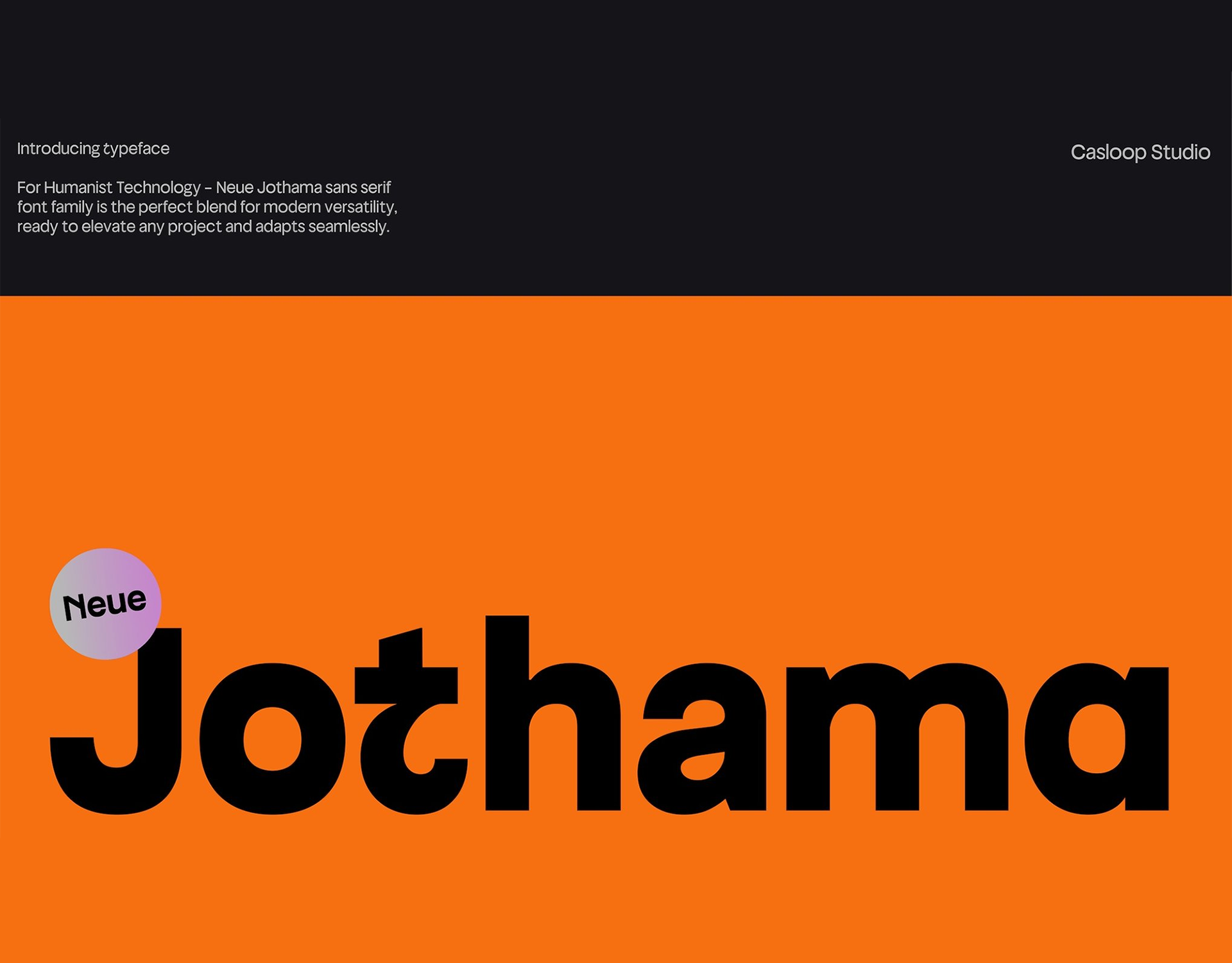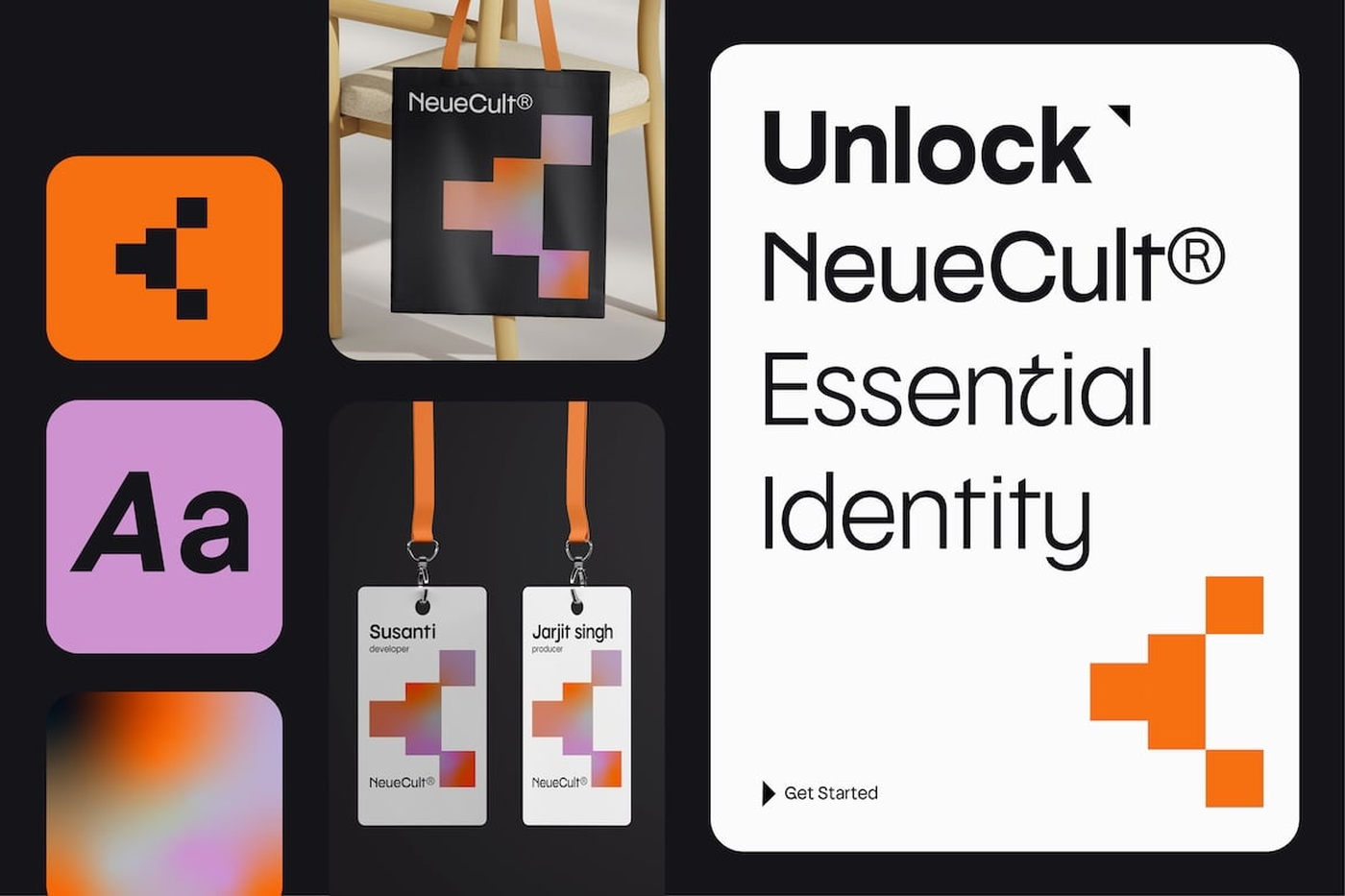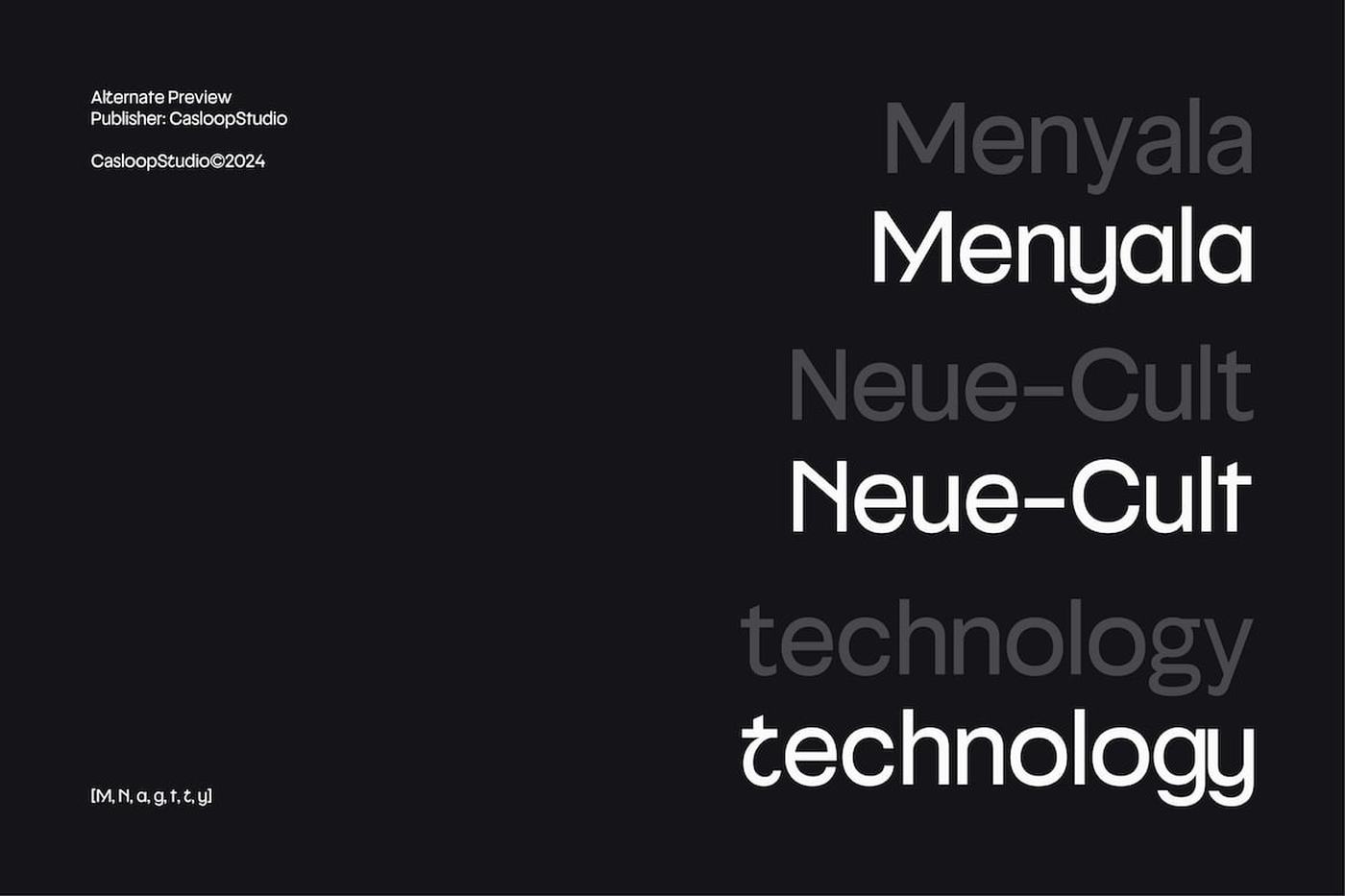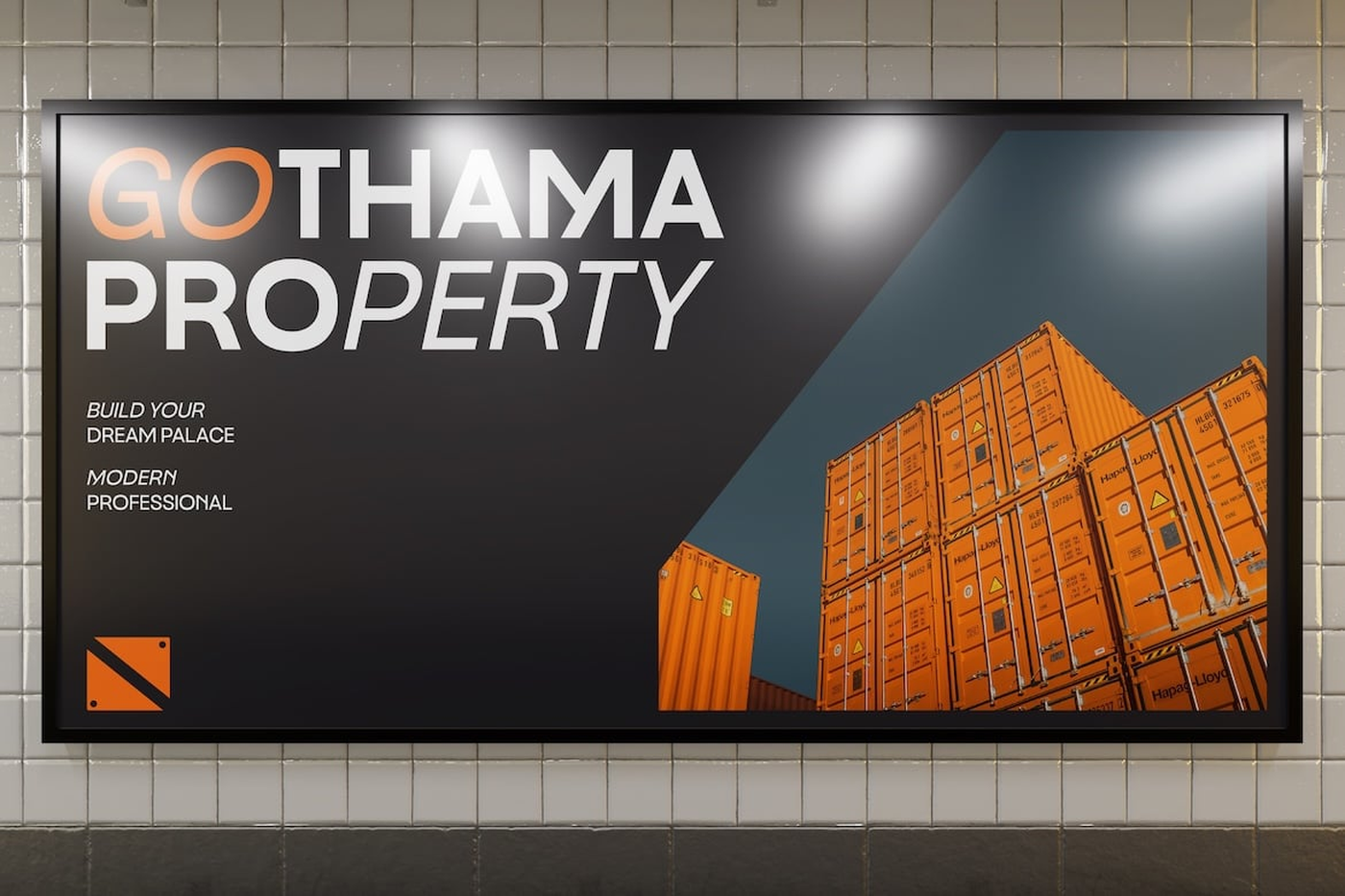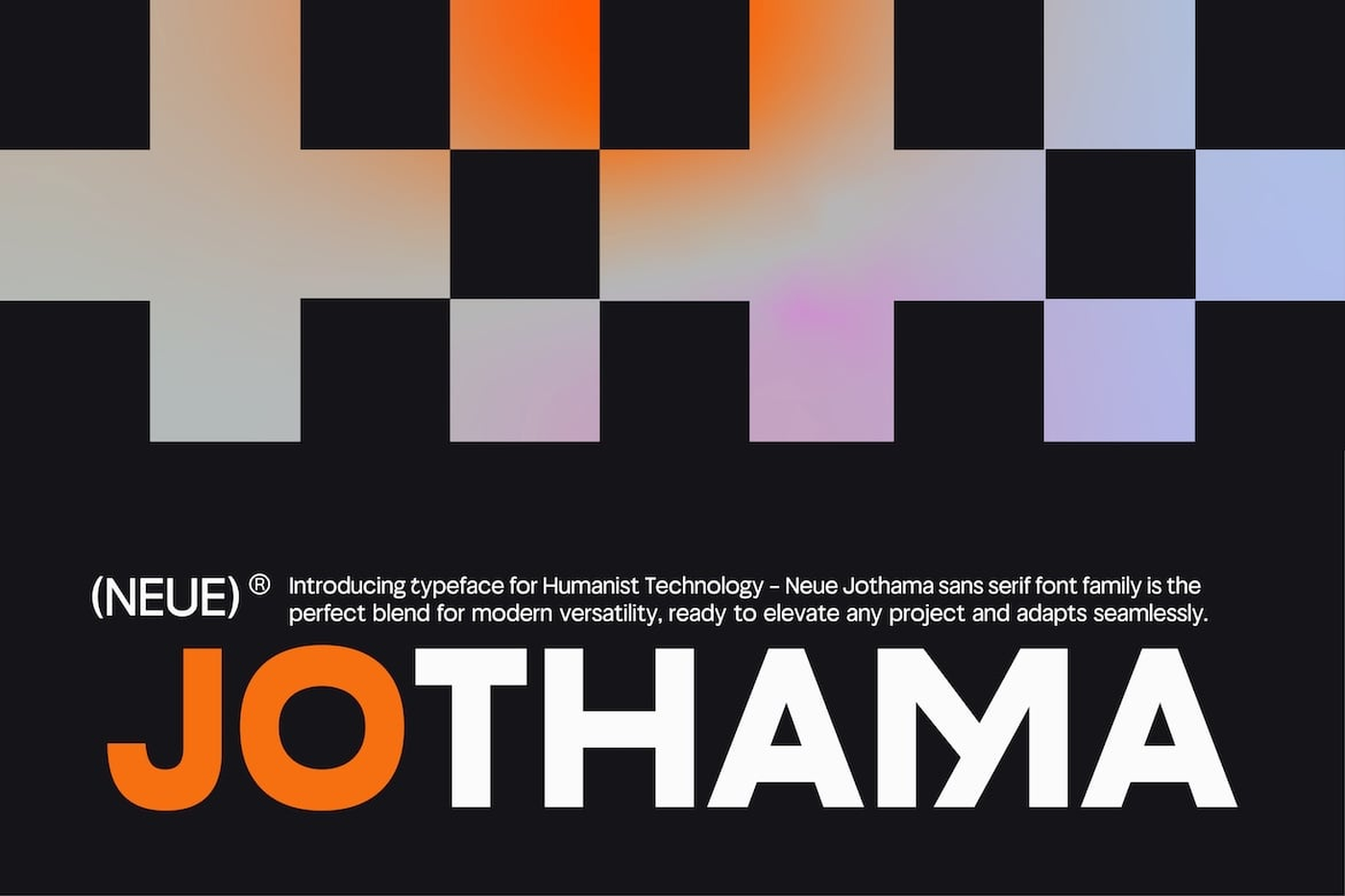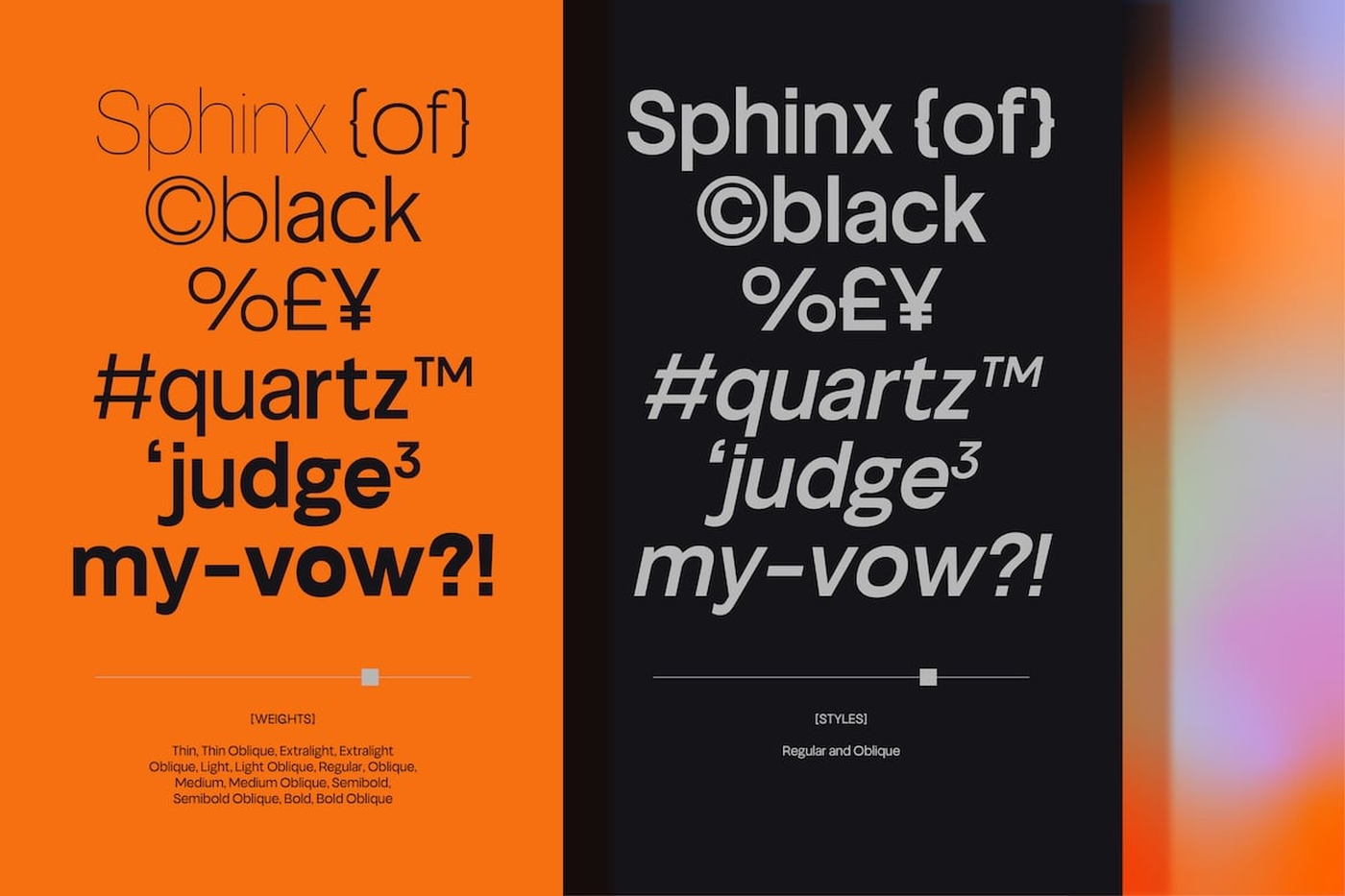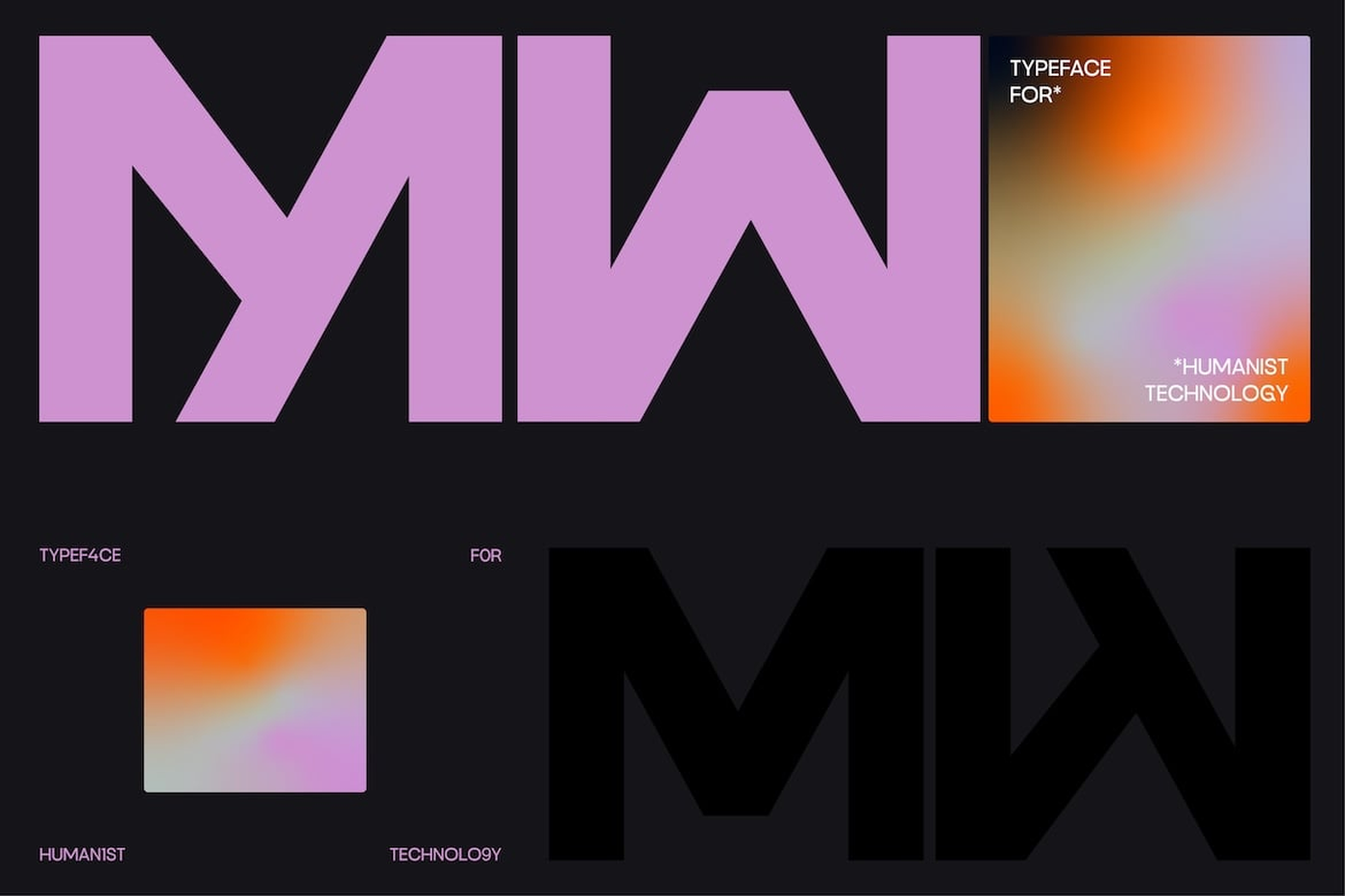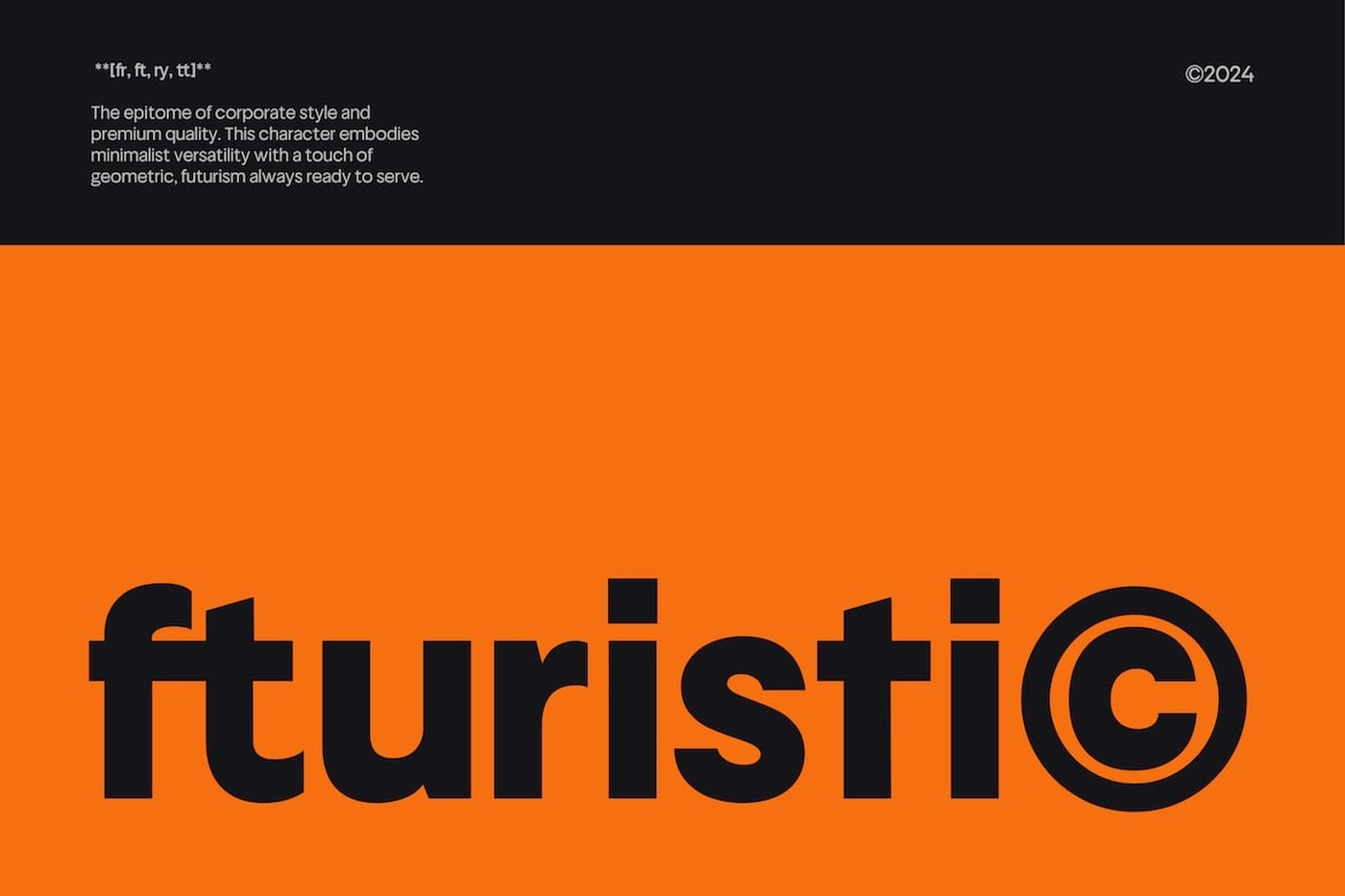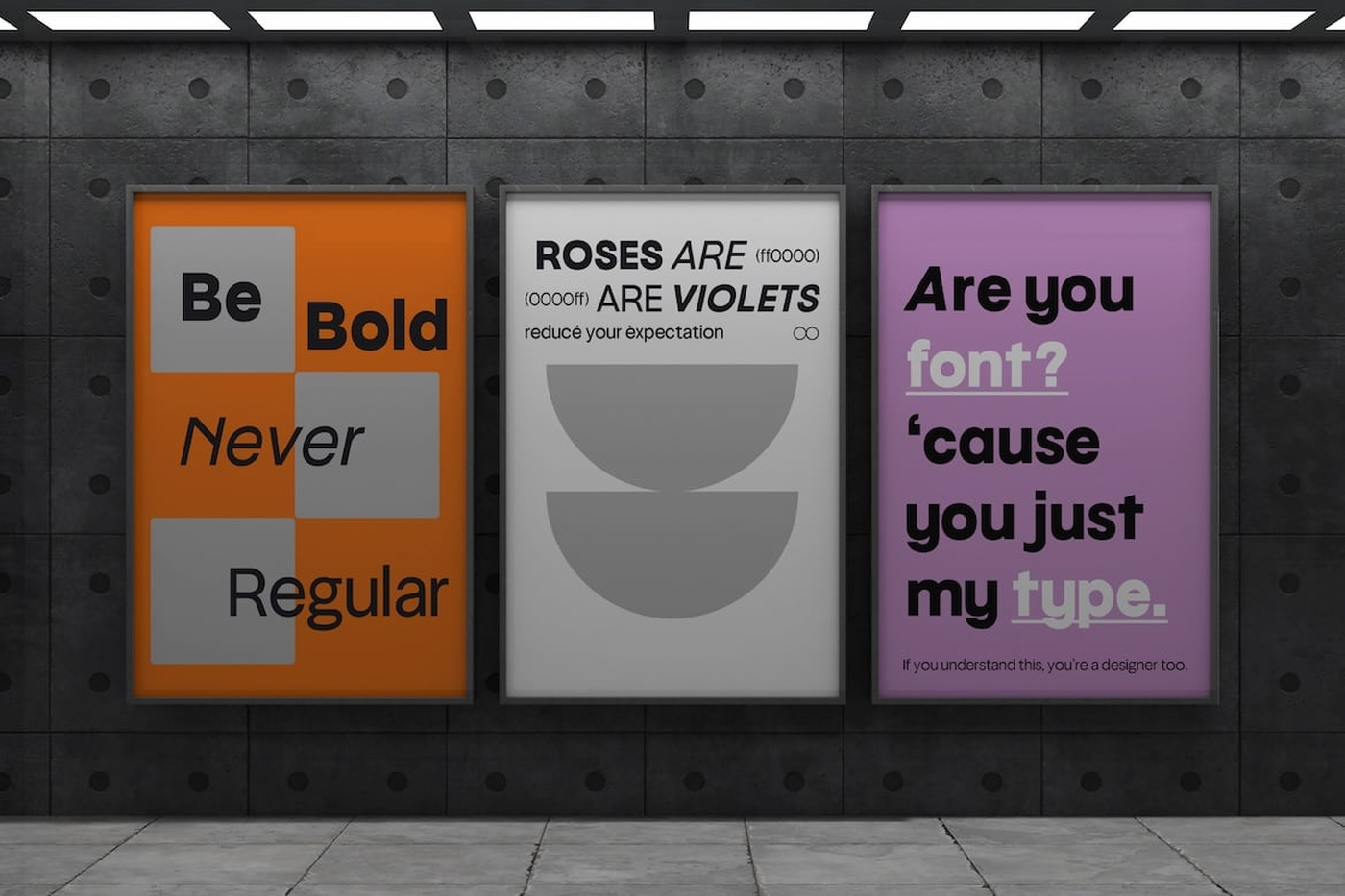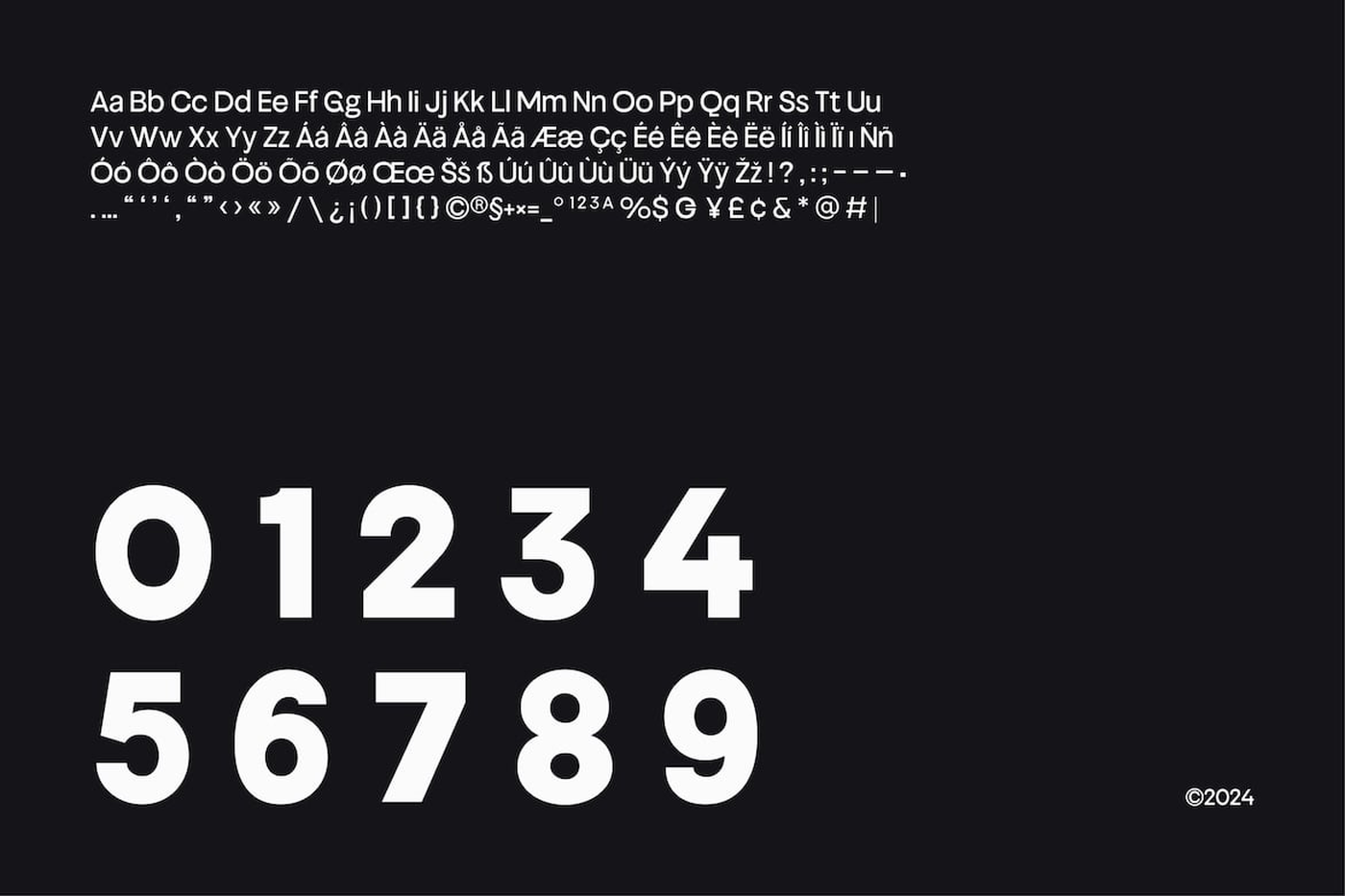
Neue Jothama - Geometric Sans Serif Font
Neue Jothama is the epitome of modern sophistication and versatility in typography. Neue Jothama is a geometric sans-serif typeface that harmoniously blends humanist and neo-grotesque elements, making it the perfect choice for any professional design need. Its contemporary and sleek design, coupled with distinctive uppercase characters and a large x-height, ensures that your text stands out with clarity and impact. This premium font family boasts a wide range of weights, from thin to bold, in both upright and oblique styles. Its minimalist and expressive forms are designed to be highly legible, even at small sizes, making it an ideal choice for corporate branding, packaging, websites, and digital media visuals.